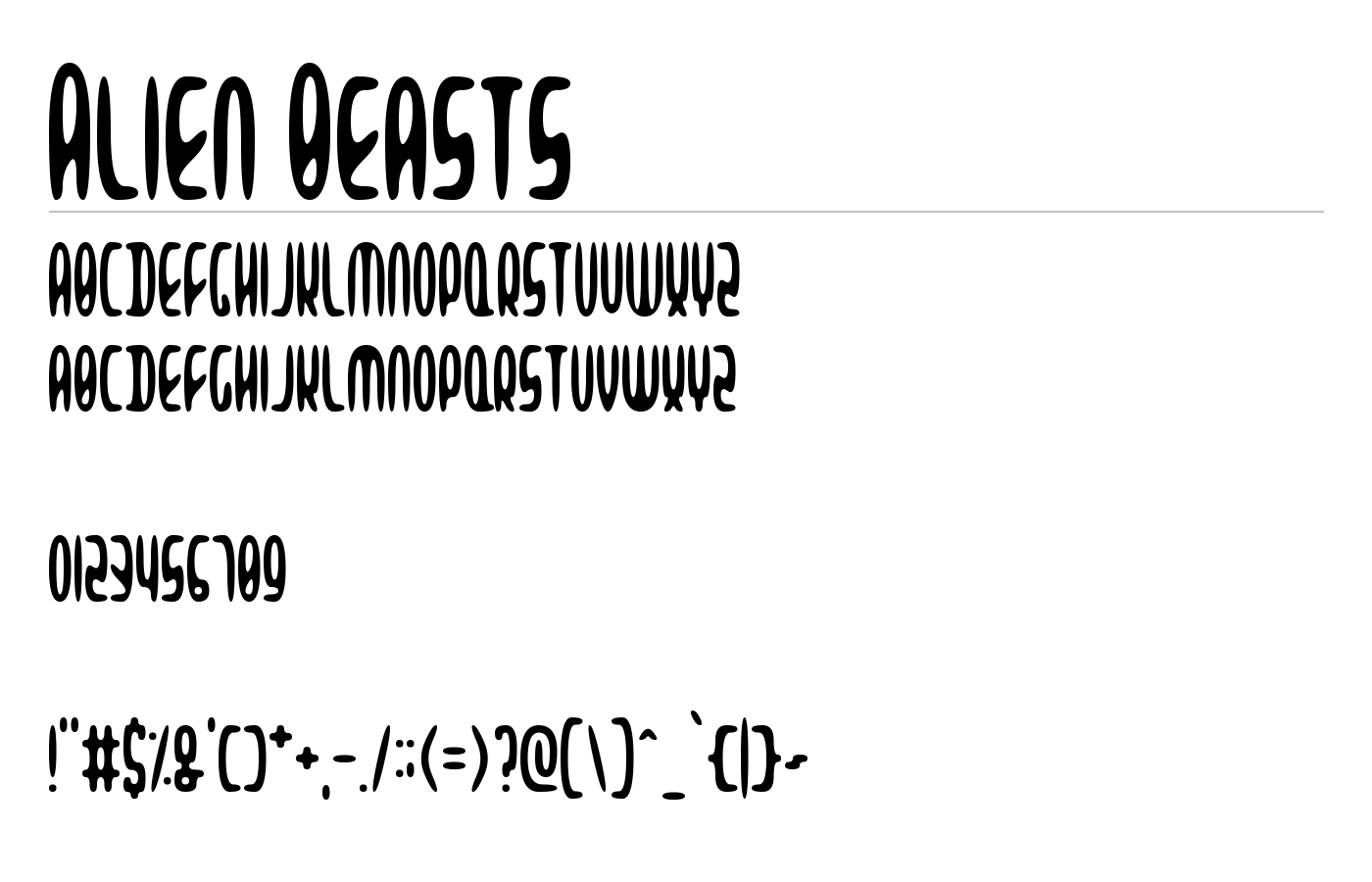
Alien Beasts is a bold, condensed sans serif font with a quirky, organic feel created by its uneven, stretched letterforms and rounded edges. Its playful, slightly eerie style makes it perfect for creative projects that want to convey an otherworldly or fun sci-fi vibe, such as posters, logos, or children's entertainment. This font's unique personality grabs attention while remaining legible and distinctive.
Alien Beasts Font
About Alien Beasts Font